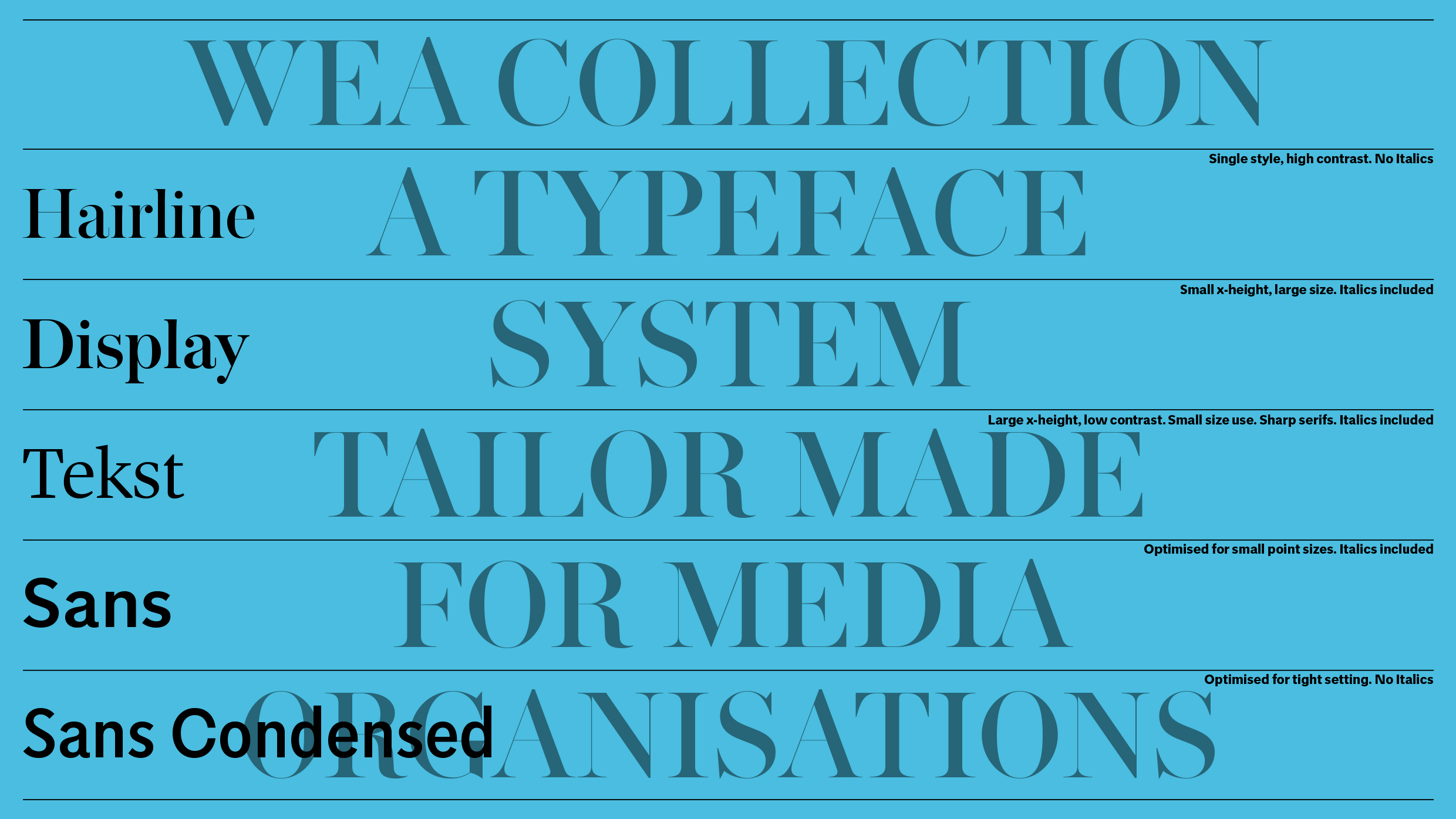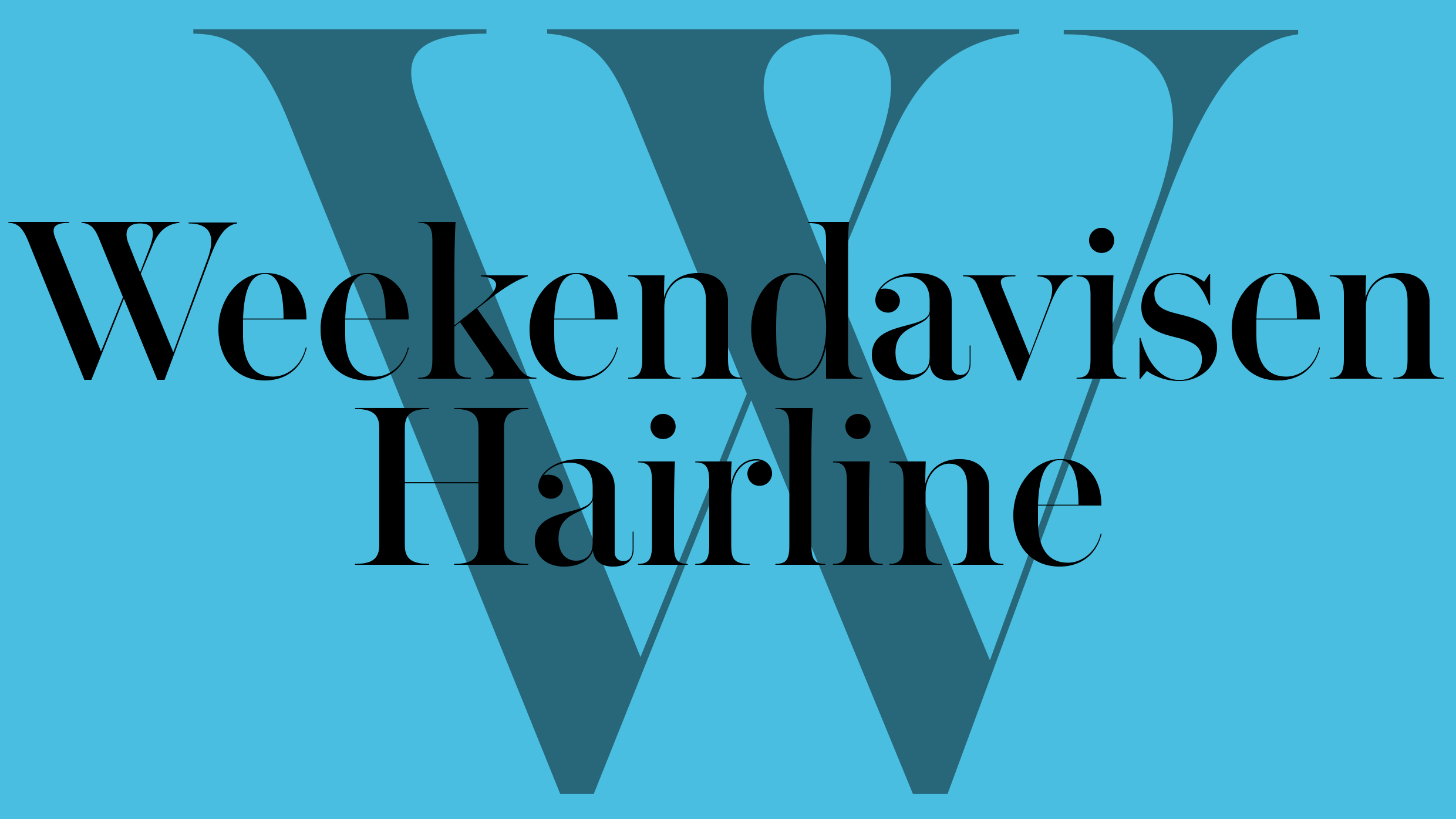
WEA Hairline Regular
A comprehensive family of interconnected fonts commissioned by Weekendavisen, the Danish weekly broadsheet with 250,000 readers. Rooted in the paper’s lineage back to Berlingske Tidende (1749), the system spans Hairline, Display, Text, and Sans – designed for both print and on-screen reading. The redesign was named World’s Best Designed Newspaper (SND, 2021, 2026) and the type system received the Tokyo TDC Award (2021).